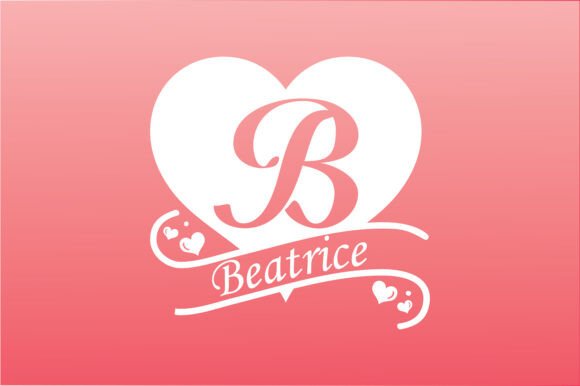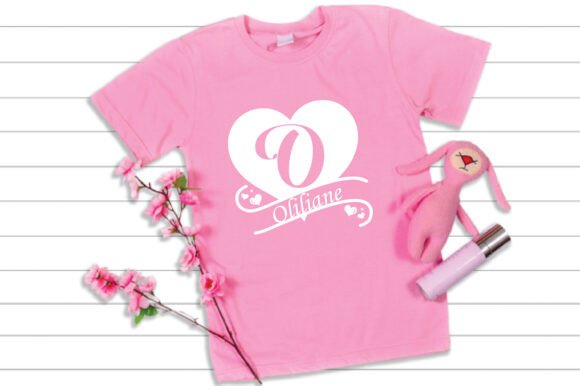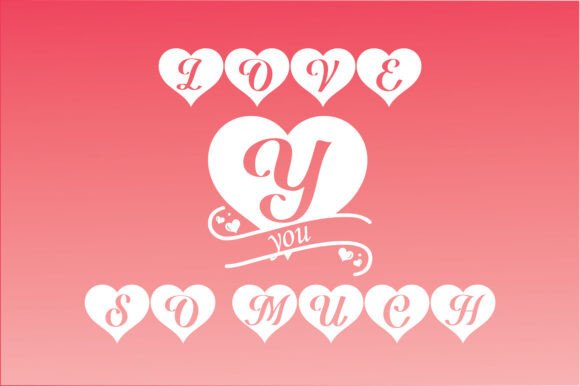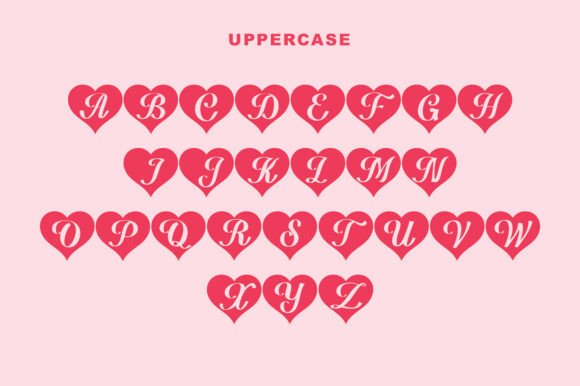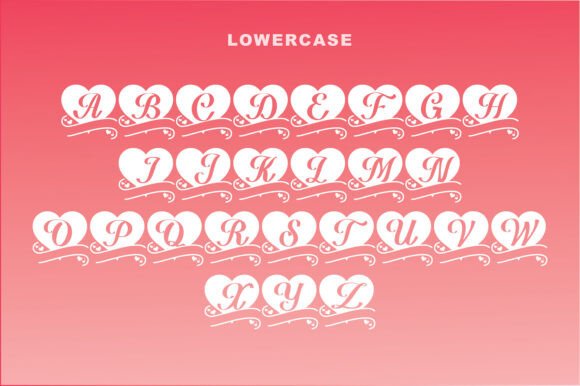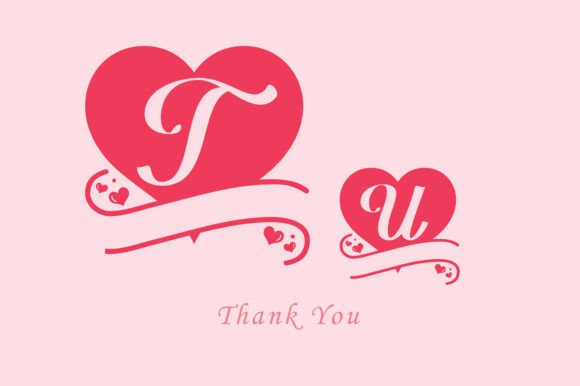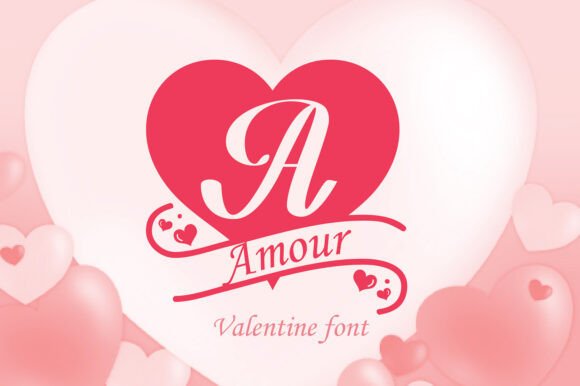
Introducing Amour Font: The Ultimate Typeface for Romantic Designs
Are you looking for a font that captures the essence of love and romance? Look no further than Amour Font, a beautiful and elegant typeface inspired by the magic of Valentine’s Day. Designed to add a charming and delicate touch to any project, Amour Font is perfect for love letters, wedding invites, and heartfelt designs.
The Inspiration Behind Amour Font
Amour Font is a romantic typeface that embodies the spirit of love and affection. Its elegant curves and lovely accents are designed to evoke feelings of warmth and tenderness, making it the perfect choice for any project that requires a touch of romance. Whether you’re a designer, crafty DIY enthusiast, or simply someone who loves beautiful typography, Amour Font is sure to captivate your heart.
Key Features of Amour Font
- Elegant Curves: Amour Font features smooth, flowing curves that give it a sophisticated and refined look.
- Lovely Accents: The font comes with a range of lovely accents, including hearts, flowers, and other romantic embellishments.
- Charming and Delicate: Amour Font has a charming and delicate quality that makes it perfect for love letters, wedding invites, and other romantic designs.
- Perfect for Valentine’s Day: Amour Font is specifically designed with Valentine’s Day in mind, making it the perfect choice for any project that requires a romantic touch.
Uses for Amour Font
Amour Font is a versatile typeface that can be used in a variety of creative projects. Here are some ideas to get you started:
- Love Letters: Add a touch of romance to your love letters with Amour Font.
- Wedding Invites: Make your wedding invitations truly special with Amour Font.
- Heartfelt Designs: Use Amour Font to create beautiful and heartfelt designs for special occasions.
- DIY Crafts: Amour Font is perfect for crafty DIY enthusiasts who want to add a personal touch to their projects.
Tips for Using Amour Font
Here are some tips for using Amour Font in your designs:
- Pair with Other Fonts: Amour Font looks great when paired with other romantic fonts or elegant scripts.
- Use in Combination with Images: Combine Amour Font with beautiful images of flowers, hearts, or other romantic motifs to create stunning designs.
- Experiment with Colors: Try using Amour Font in different colors to add a pop of color to your designs.
Amour Font is a beautiful and elegant typeface that’s perfect for anyone who loves romance and typography. With its charming and delicate curves, lovely accents, and versatile uses, Amour Font is sure to become a favorite among designers and crafters alike. Whether you’re looking to create love letters, wedding invites, or heartfelt designs, Amour Font is the perfect choice. So why wait? Download Amour Font today and add a touch of romance to your designs!